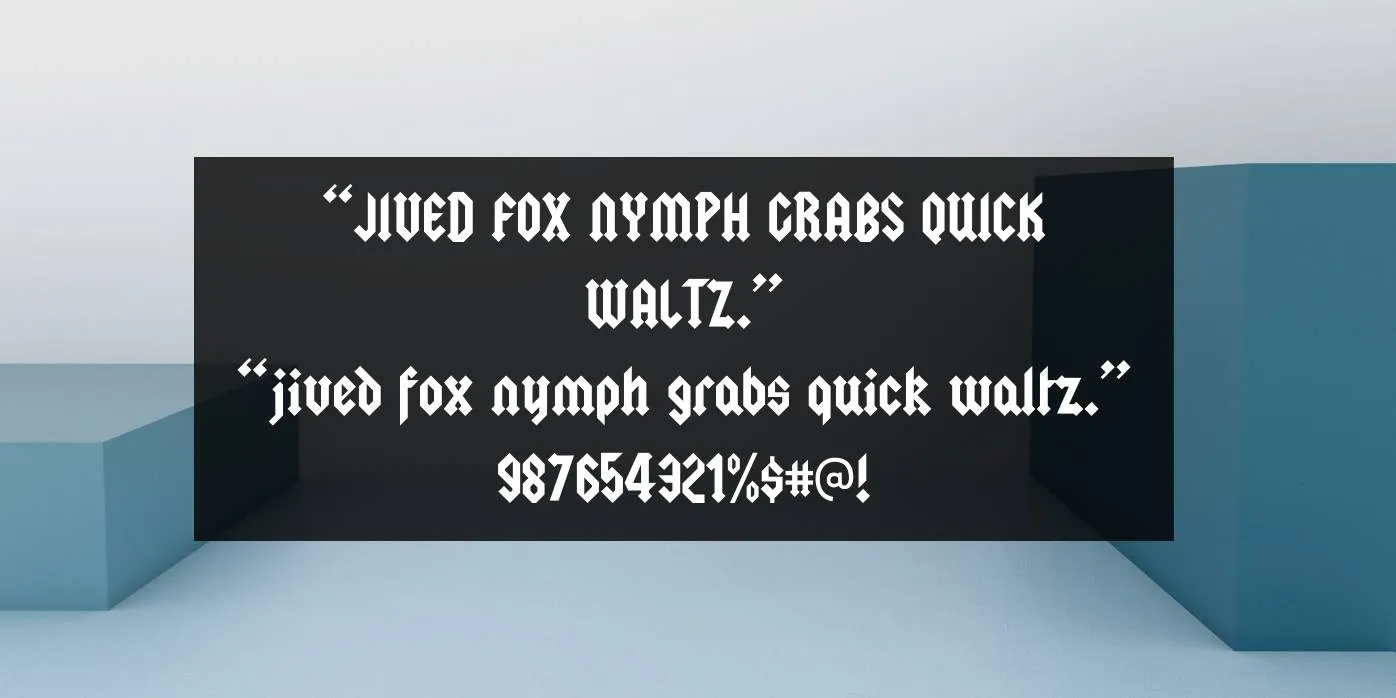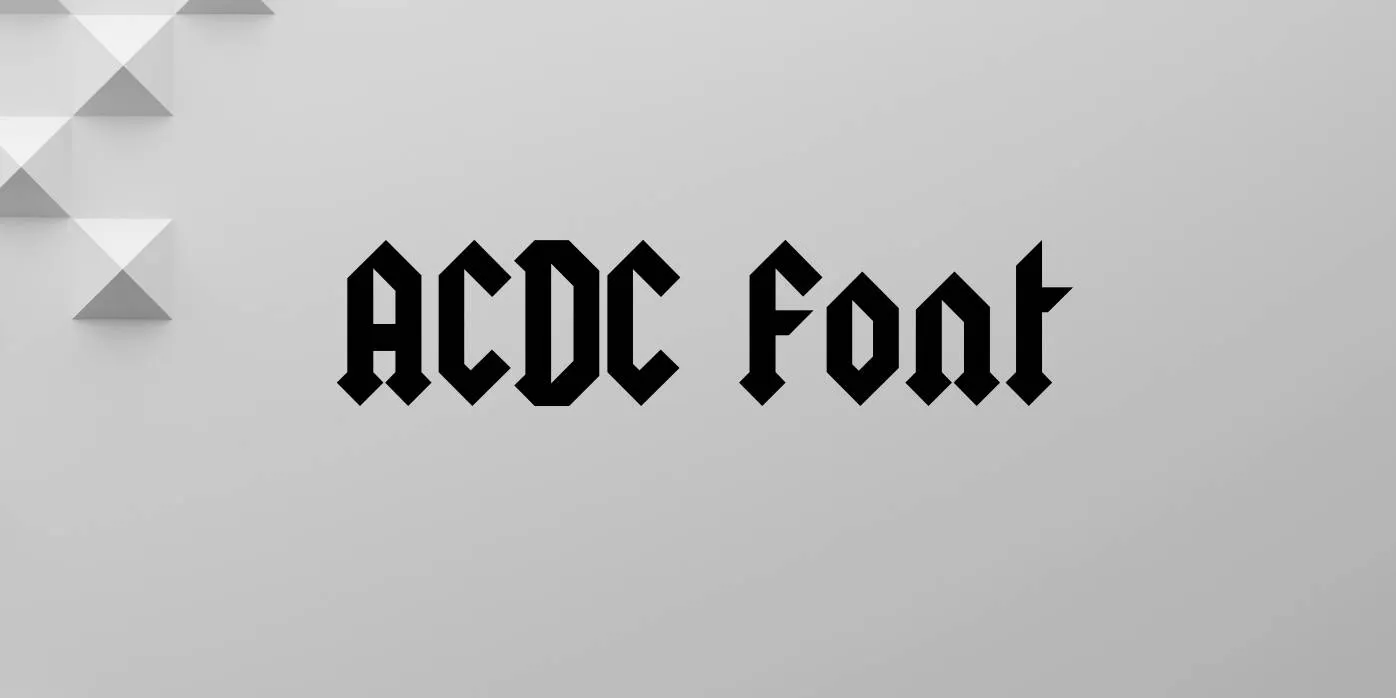
ACDC Font
Here, we are going to present ACDC Font which belongs to the display family. Malcolm and Angus Young are the designers of this family. They took the inspiration for this typeface from their band name. This font family is available in a single style that contains features like uppercase, lowercase, numerals, and punctuation marks.
You can use this vintage font for various purposes. you can create posters, headlines, logos, and t-shirt designs with it. The copy and paste function of this family is classic. You can also use norton font which is closest to this font family.